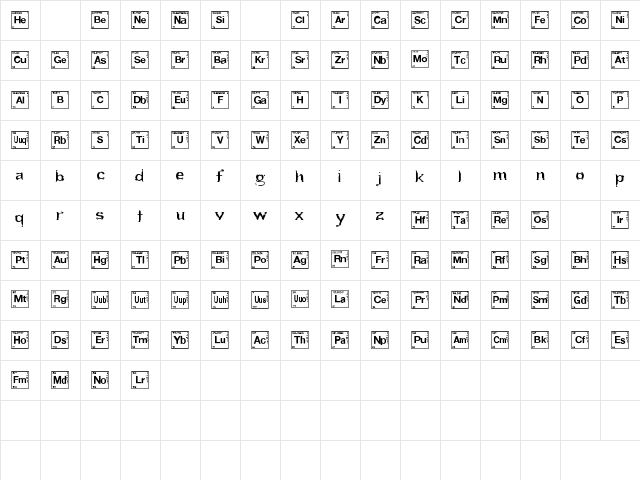
Heart Breaking Bad Regular
Design Context for Heart Breaking Bad
Heart Breaking Bad is a composed and adaptable typeface that performs quietly and consistently across a wide range of design contexts.
Pro Tip: Use Heart Breaking Bad in both headline and body roles to test its range before committing to a single application.